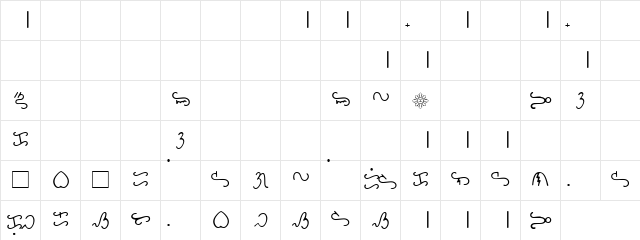
Bikol Mintz Regular
| Copyright | Font aul Morrow Bikol Mintz is a Filipino Baybayin script. It is modeled after the script shown on the cover of the Bikol -English Dictionary by Malcolm Mintz & Josritanico, New Day Publishers, 1985. |
Design Context for Bikol Mintz Typeface
Bikol Mintz offers clean, dependable letterforms without strong stylistic allegiance, making it a practical choice for designers who need flexibility.